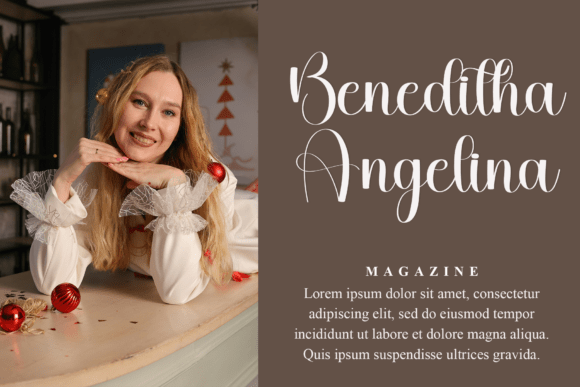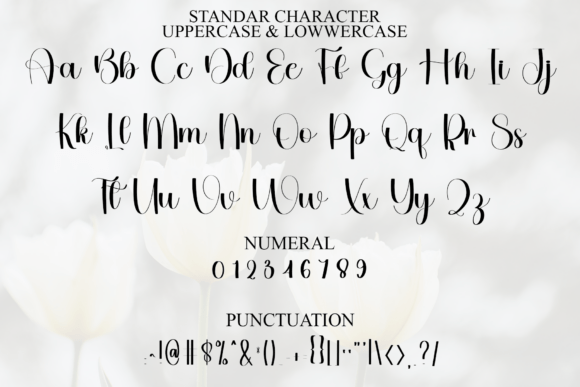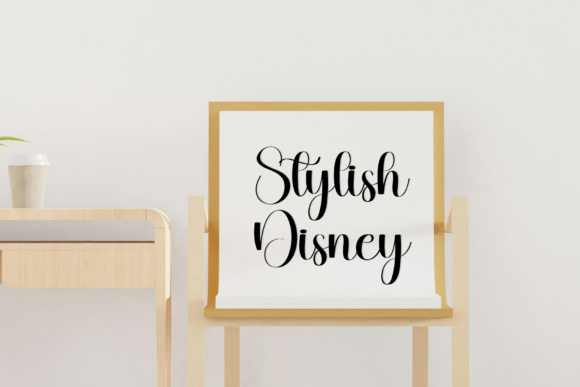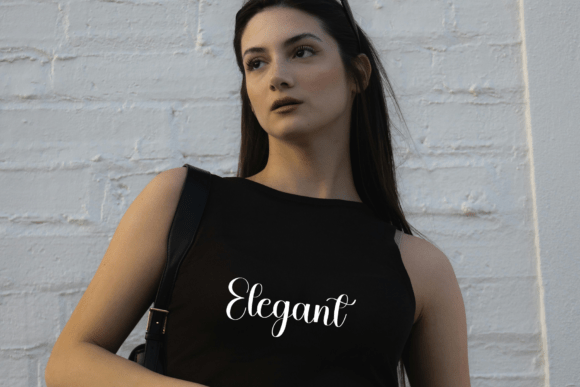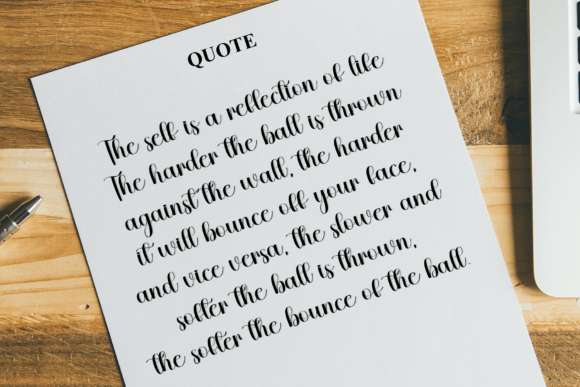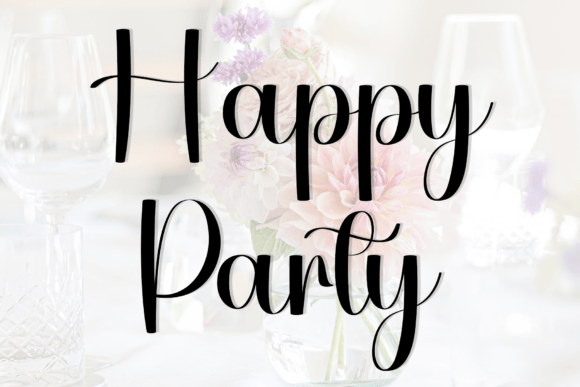
Introduction to Fancy Party Font
As a designer, there’s nothing quite like the thrill of bringing a creative project to life. You’re brainstorming ideas, experimenting with colors, and searching for the perfect font to set the tone. That’s when you stumble upon the perfect design resource – a high-quality font that exudes warmth and friendliness. For many of us, that font is the Fancy Party Font, with its round, playful strokes and charming, hand-drawn aesthetic.
Whether you’re creating social media graphics, designing invitations, or working on a personal project, the Fancy Party Font is the perfect choice. Its relaxed and approachable feel makes it a valuable addition to any design, and its transparent background allows for seamless integration into various applications.
Key Features of Fancy Party Font
- High-quality design resource for creative projects, ideal for parties, celebrations, and special events
- Includes a wide range of characters, including uppercase and lowercase letters, numbers, and punctuation marks
- Unique, cursive-style font with a playful and festive feel, making it ideal for adding a touch of elegance to any design project
Honest Review: Fancy Party Font
As a designer, I’m always on the lookout for high-quality design resources to elevate my creative projects. The Fancy Party Font is one such resource that caught my attention, and I’m excited to share my thoughts with you.
- Beautiful, elegant script font perfect for adding a touch of sophistication to your designs.
While the Fancy Party Font is a great addition to any designer’s toolkit, there are a few limitations to be aware of:
- No bold or italic versions available, which may limit its use in certain design contexts.
- Not suitable for use in small font sizes, as the script style can become difficult to read.
Overall, I’m impressed with the Fancy Party Font and would definitely recommend it to designers working on creative projects that require a touch of elegance and sophistication. With a little creativity, you can work around its limitations and achieve amazing results.
The Fancy Party Font is ideal for creative projects such as wedding invitations, party flyers, and social media graphics. It is also suitable for branding and marketing materials, such as business cards and brochures.